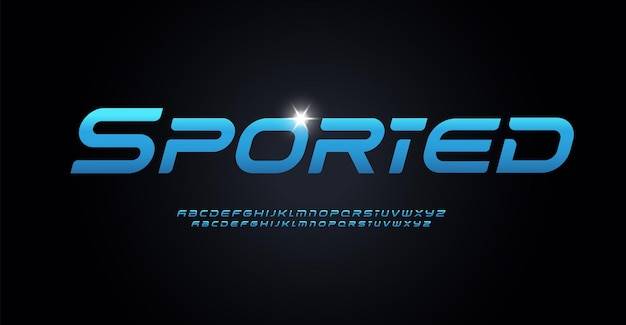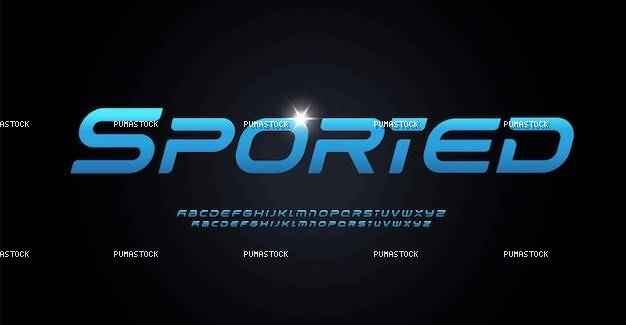
futuristic and sported font alphabet letters modern logo typography minimal futuristic typographic design sans serif letter set for speed logo headline sports monogram isolated vector typeset